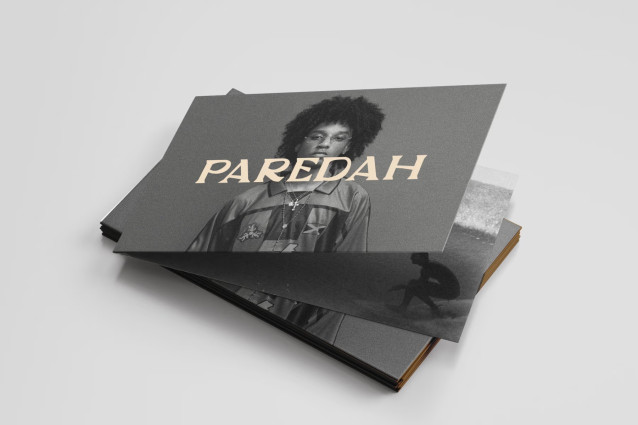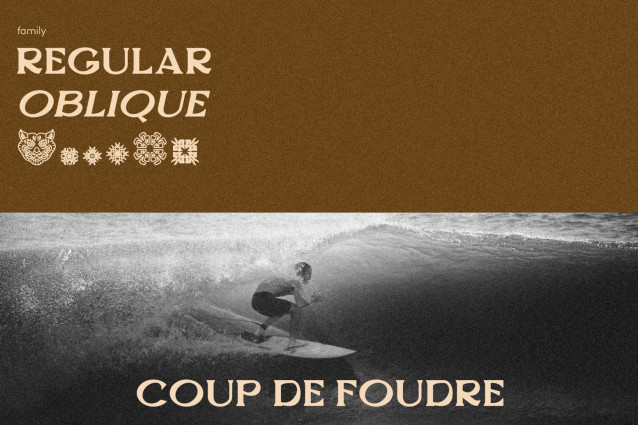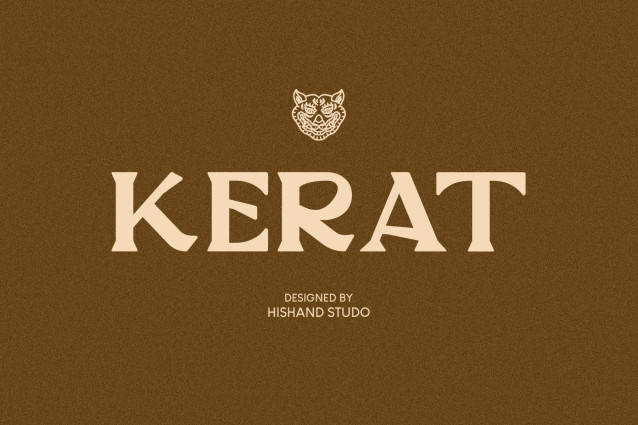
Kerat Serif Font
Kerat is a serif display typeface built around the idea that elegance doesn’t need to be cold. Its foundation draws from organic textures and quiet, natural rhythms, the kind of visual calm found in weathered surfaces, plant structures, and unhurried craftsmanship. That sensibility shows up in every letterform. A refined thick to thin contrast gives the typeface presence and sophistication, while slender, gently bracketed serifs keep it warm and approachable rather than rigid or overly geometric. The curves throughout Kerat Serif Font carry subtle modulation, swelling and tapering in a way that feels almost alive, echoing the fluid, imperfect lines found in nature rather than the mechanical precision of a ruler. At the same time, the underlying structure stays disciplined and controlled, so the typeface never loses clarity or confidence, even at large display sizes. This balance of organic warmth paired with editorial polish is what gives Kerat its distinct personality.
Kerat is designed for brands that want to feel grounded, earthy, and considered. It’s a natural fit for wellness and botanical branding, artisanal spirits and craft beverages, packaging design, premium product labels, and editorial headlines that need a touch of quiet sophistication. It works equally well in minimalist, nature-forward branding and in more vintage-leaning, heritage-inspired design systems, making it a flexible choice across a range of creative directions. Every letter has been shaped with careful attention to detail, from the gentle taper of each serif to the balanced proportions of the counters and the rhythm between strokes. Nothing feels accidental, yet nothing feels overly engineered either. The result is a typeface that reads as handcrafted and intentional, while still holding up to the demands of professional, large-scale use.